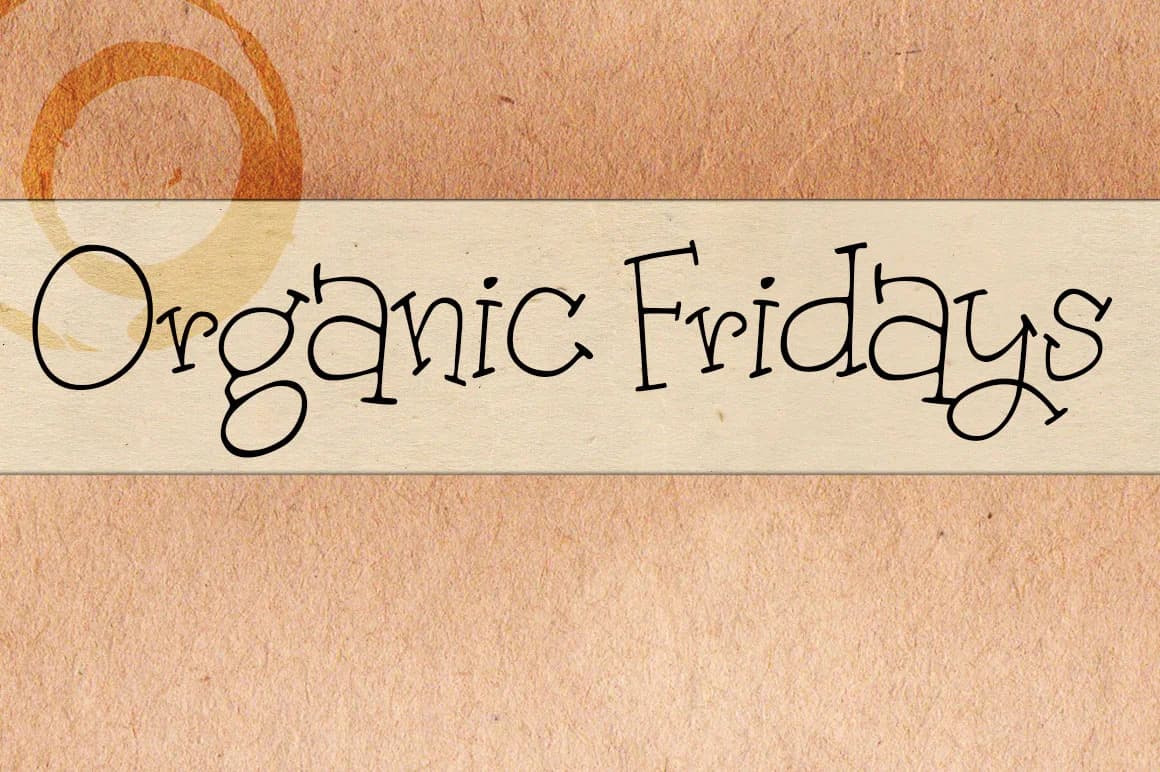
About Organic Fridays Font
Organic Fridays Font by brittneymurphydesign is a flowing handwritten script that brings organic warmth to contemporary visual design. The typeface authentically captures the mark-making quality of hand-lettering, preserving the subtle irregularities and character that distinguish genuine hand-drawn work from digital alternatives. This natural aesthetic provides brands and creators with a visual foundation that feels human-made rather than mechanically produced. The script performs exceptionally well for wedding invitation suites, where its flowing letterforms establish an intimate, elegant tone for ceremonies and celebrations. It's equally suited for Etsy product labels, artisanal packaging design, and DIY craft signage, contexts where handwritten character signals authenticity and care to consumers. Social media graphics, editorial layouts, and brand logotypes benefit from its distinctive voice. The typeface sustains its personality across both digital and print applications, maintaining impact regardless of medium. Originally designed with makers and small-business owners in mind, Organic Fridays integrates seamlessly into cutting-machine projects and handmade goods branding initiatives. Whether creating custom decals, personalized apparel, or premium product packaging, this typeface delivers the human quality that modern audiences seek. Add Organic Fridays Font to your collection on Creative Fabrica and access this authentic handwritten script for your next project.
Organic Fridays Font is a script font that shines as a display or heading face. Pair it with a clean sans-serif or serif font for body text β the contrast creates a clear hierarchy while the two styles stay balanced and easy to read.